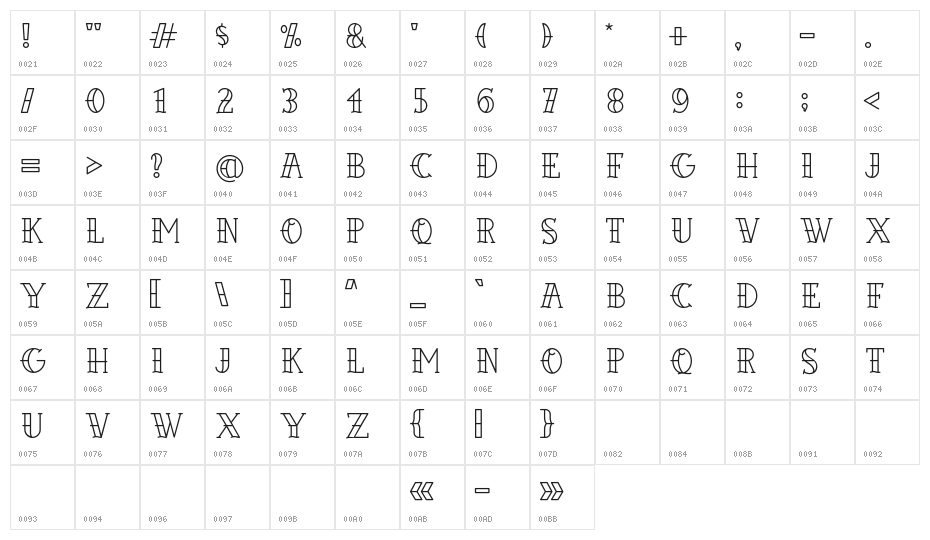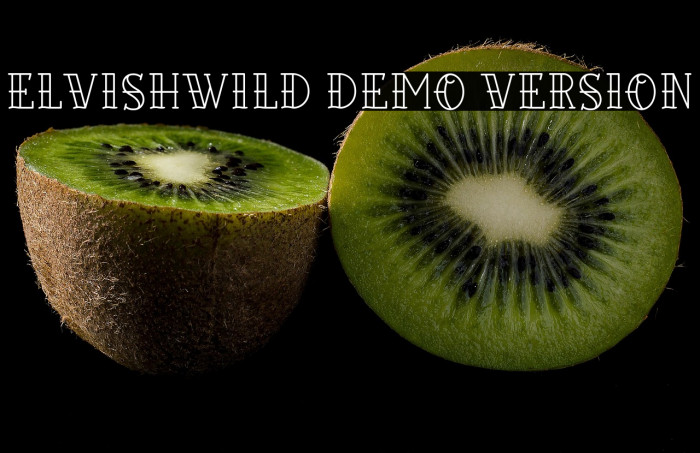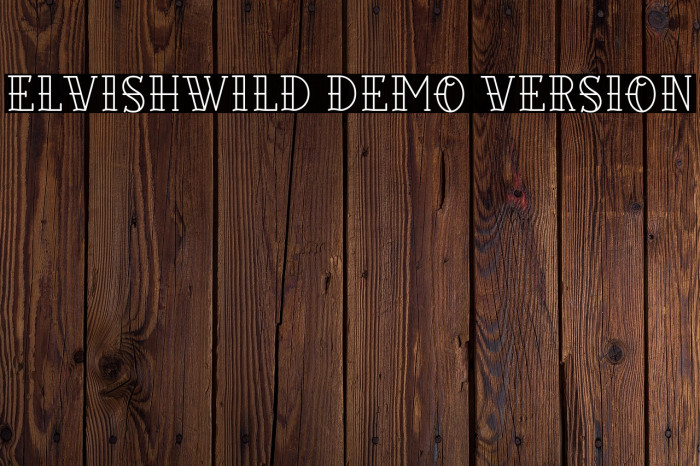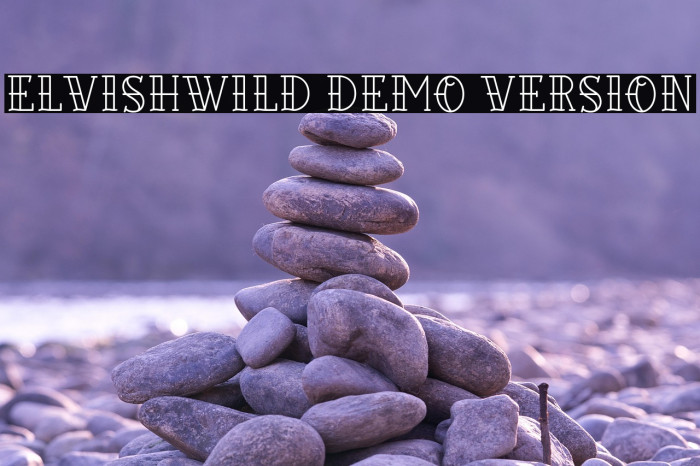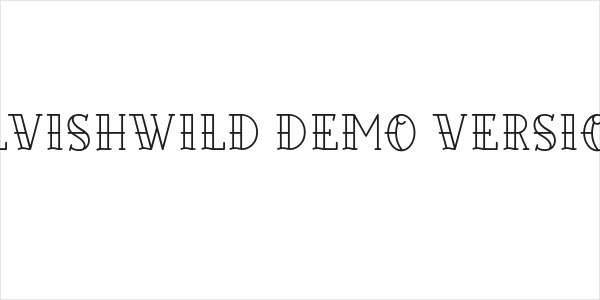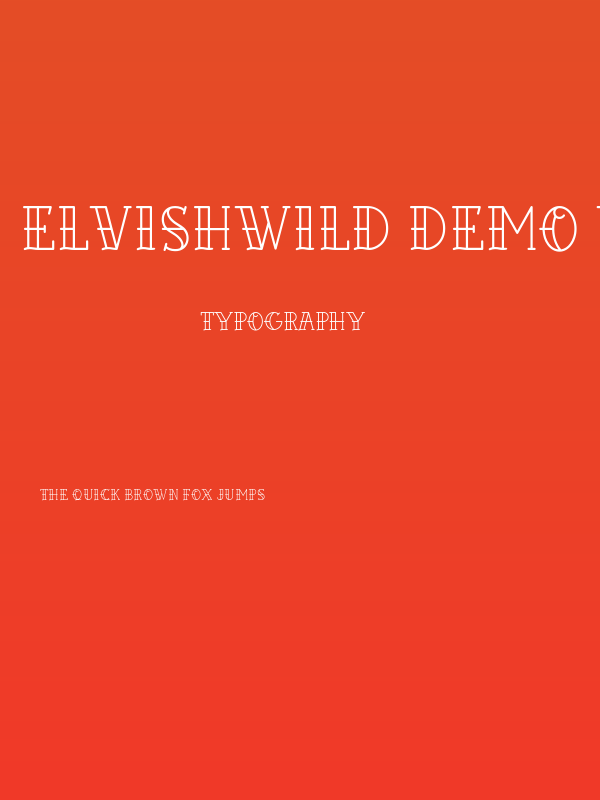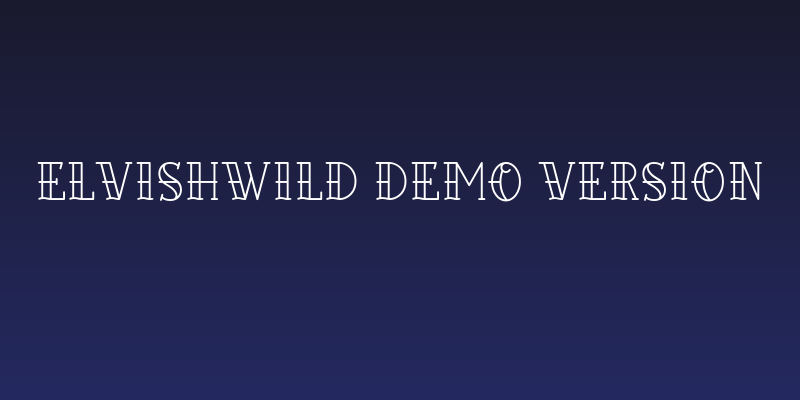
Elvishwild Demo Version Font
Elvishwild Demo Version Description
This font features a unique and decorative style with an intricate design that combines elements of both modern and vintage aesthetics. The characters are characterized by their geometric shapes and elaborate detailing, which give them an ornamental appearance. The uppercase and lowercase letters maintain a consistent style, with sharp angles and distinct curves that create a sense of elegance and sophistication. The numerals and special characters follow the same design principles, ensuring a cohesive look across all glyphs. This font is ideal for projects that require a touch of fantasy or a medieval theme, making it suitable for book covers, posters, and themed events.
| Proposed Projects | Ideal for book covers, posters, themed events, and any project requiring a fantasy or medieval aesthetic. |